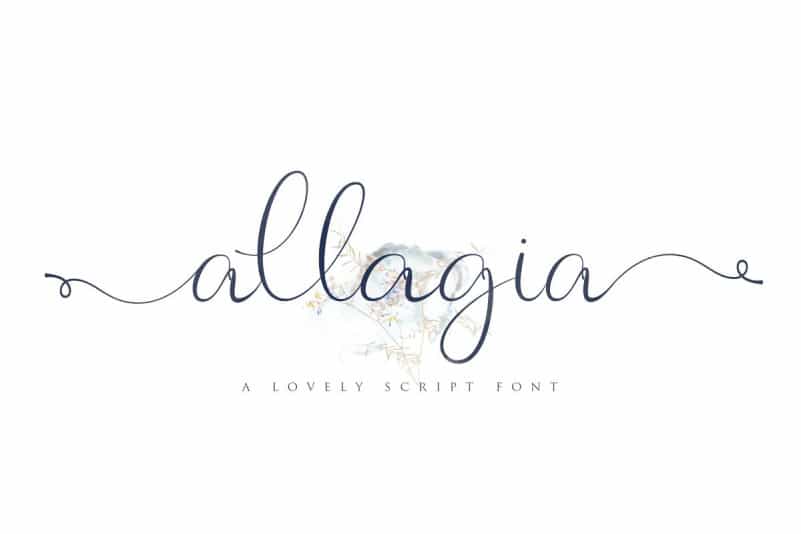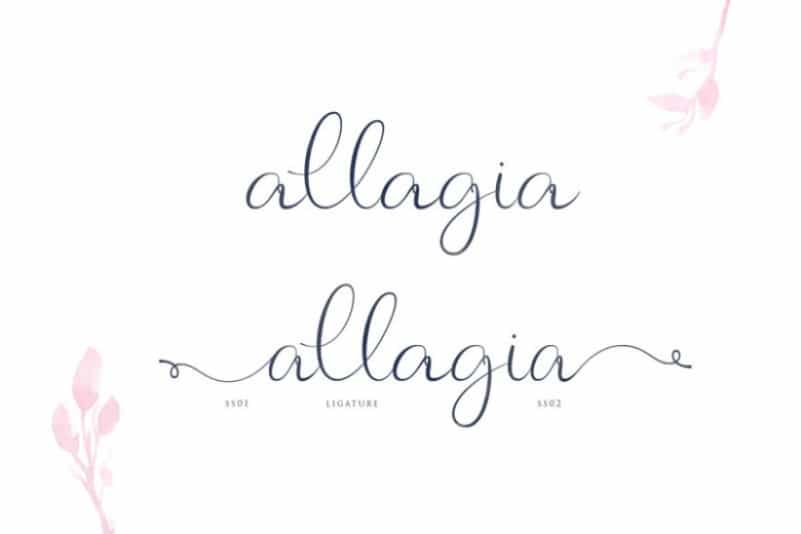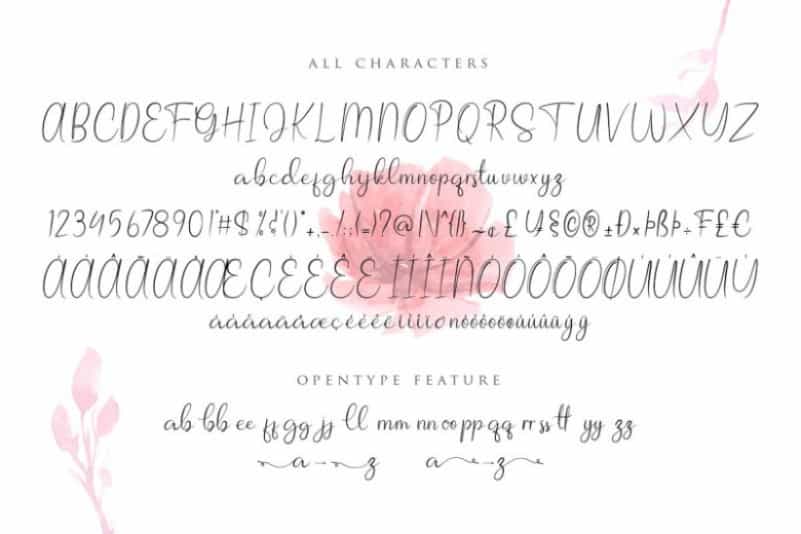
Introducing Allagia Font. Allagia Script Font is written in natural handwriting style and it fits well for many different projects like logos & branding, invitation, stationery, wedding designs, social media posts, advertisements. It also can be used for product packaging, poster design label photography watermark special events or anything else you may need it for quotes fashion etc…